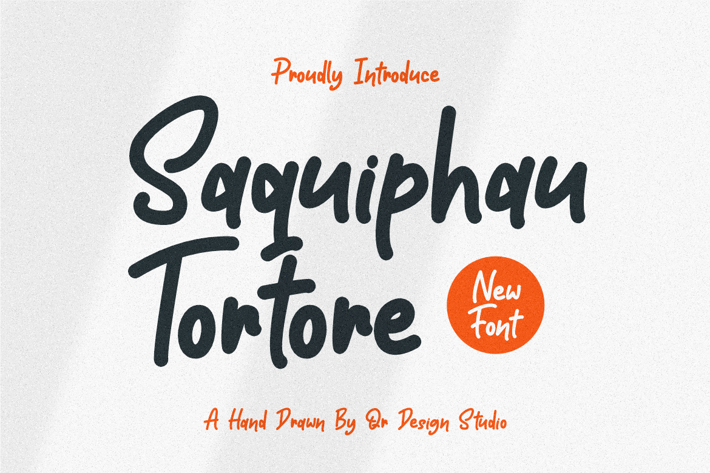
Saquiphau Tortore - Hand Drawn Font
Saquiphau Tortore - Hand Drawn Font is a handwritten and authentic display font.
The font is suitable for any branding project like greeting card, wedding, signature, poster, logo, sport, and many more.